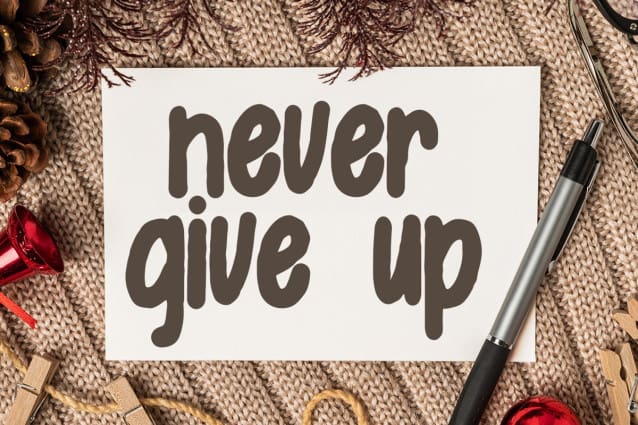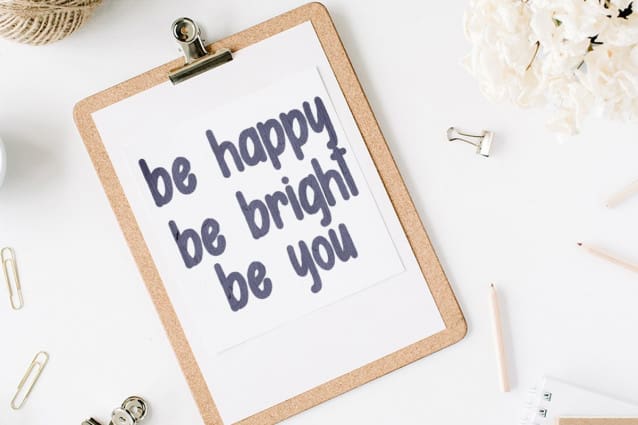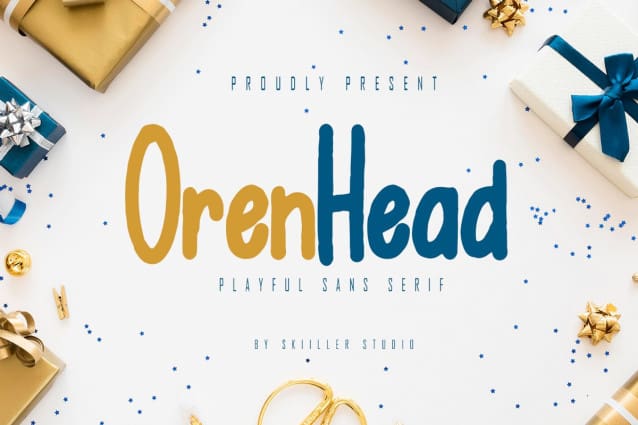
Orenhead Playful Font
Orenhead Playful Font is a playful and cool display font. This font is perfect for children themed designs, especially when combined with bright colors.